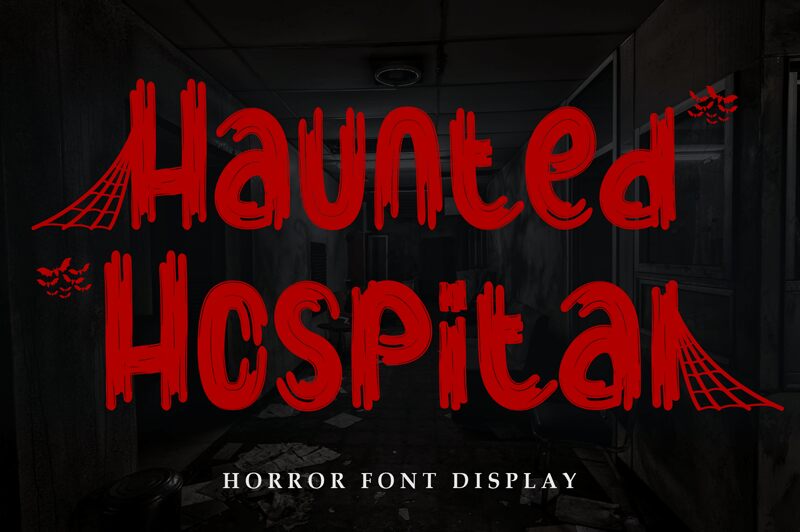
Haunted Hospital
Haunted Hospital font from Scratchones is a truly intimidating display font inspired by the fear-provoking themes of Halloween. It features bold characters with a generally informal design and rough textures that give off an eerie atmosphere. Unsettling aesthetics designed through a careful selection of details make this holiday typeface the perfect choice for scary headlines and titles.